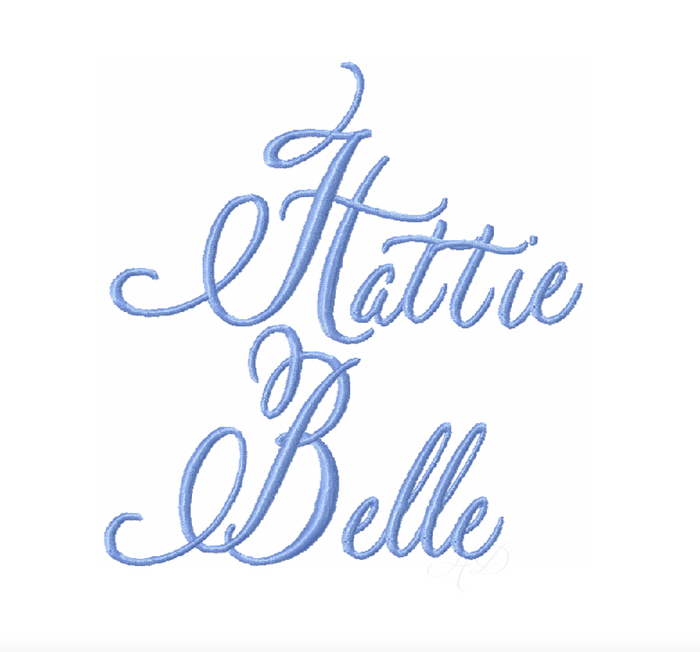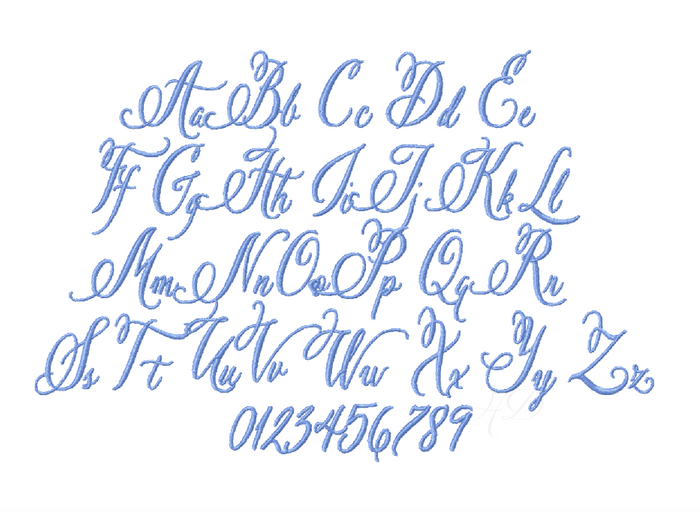
Hattie Belle Script Embroidery Font Large
Unleash your creativity with the Hattie Belle Large Satin Stitch Font, a stunning embroidery font perfect for personalizing your projects. This elegant font features satin stitching, making it ideal for monogramming on various fabrics.
Included in this download are both uppercase and lowercase letters along with numbers 0-9, ensuring versatility for all your crafting needs. The available sizes—3", 3.5", and 4"—are designed to fit within a 6x10 hoop or larger, making them suitable for different embroidery machines.